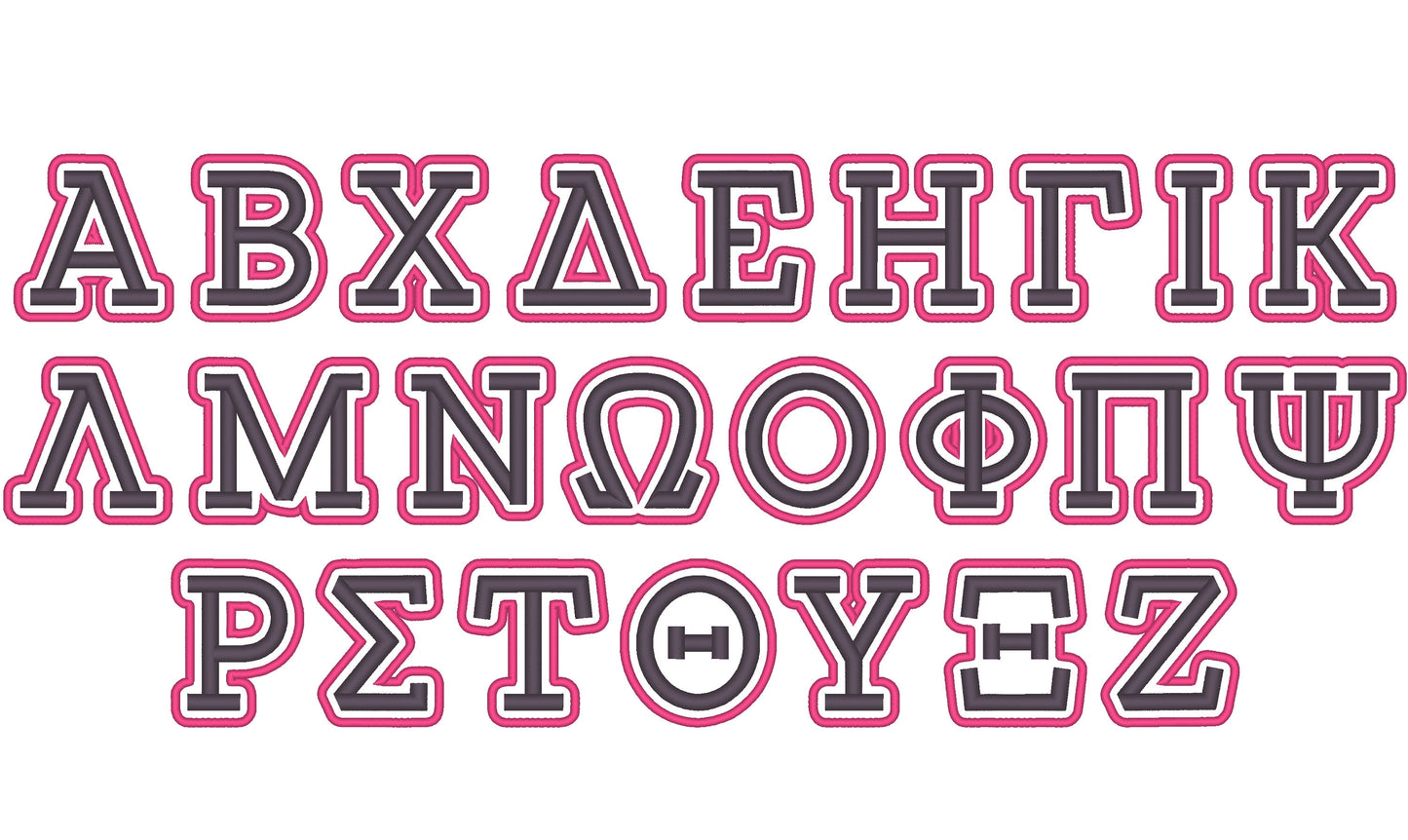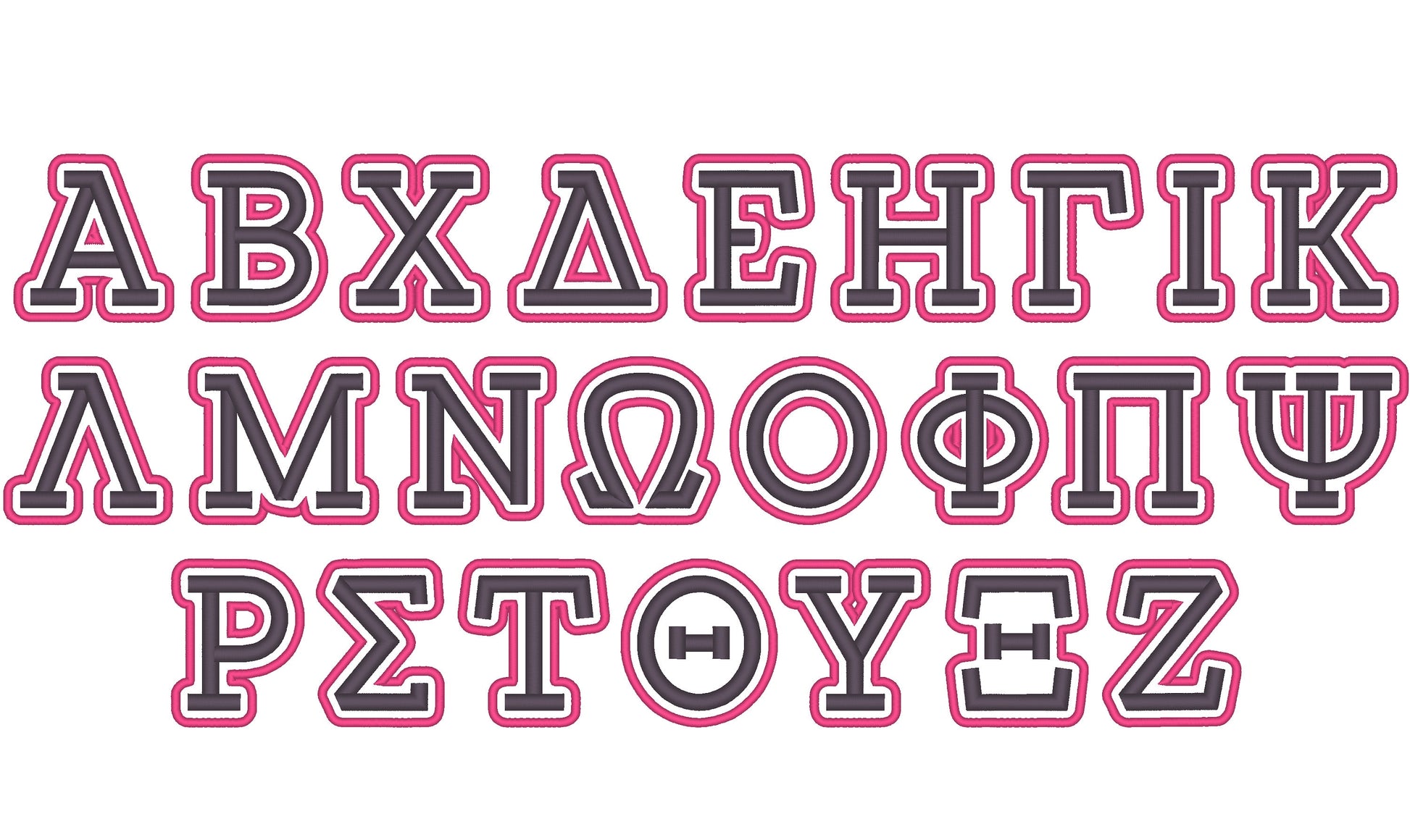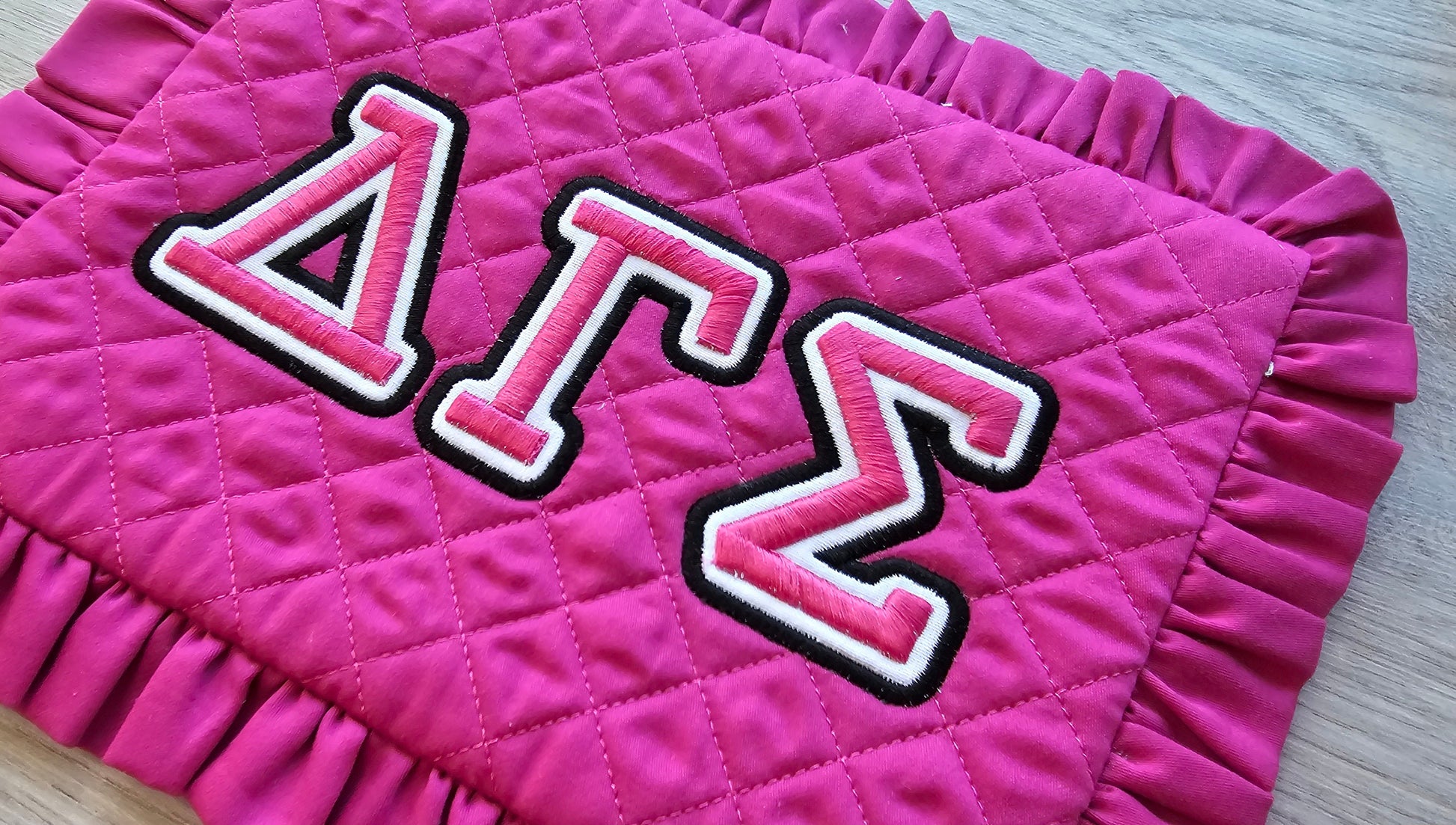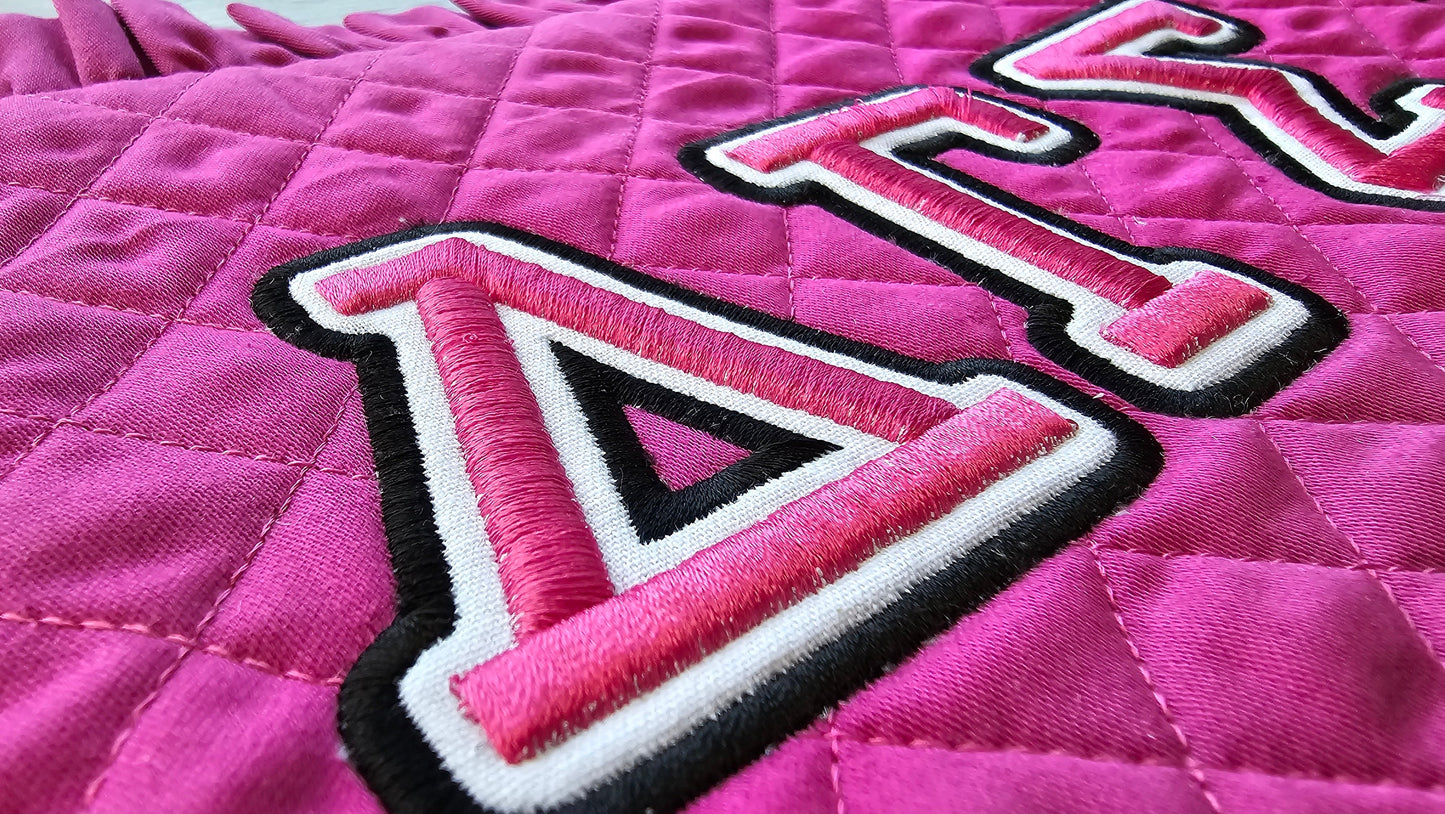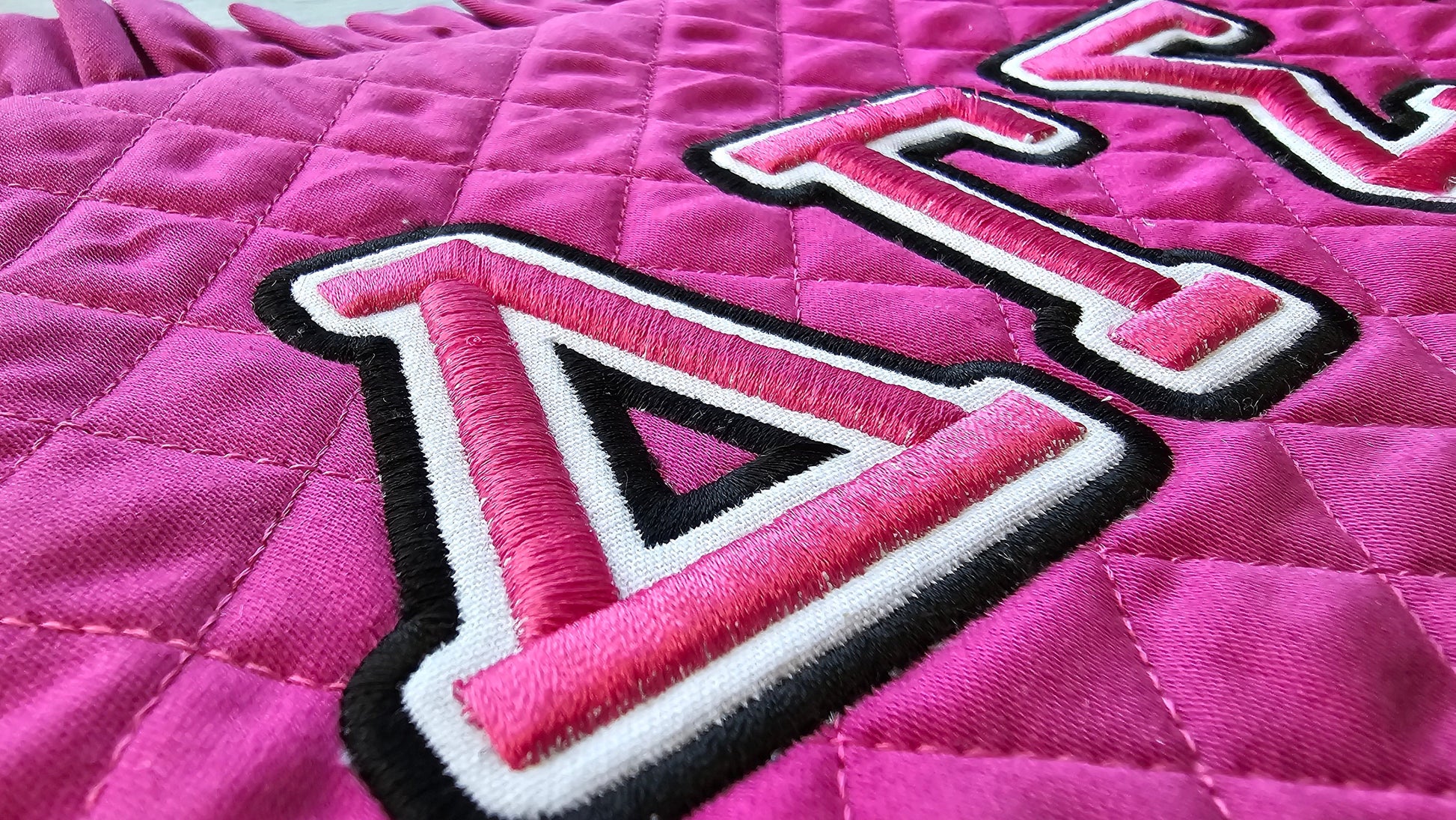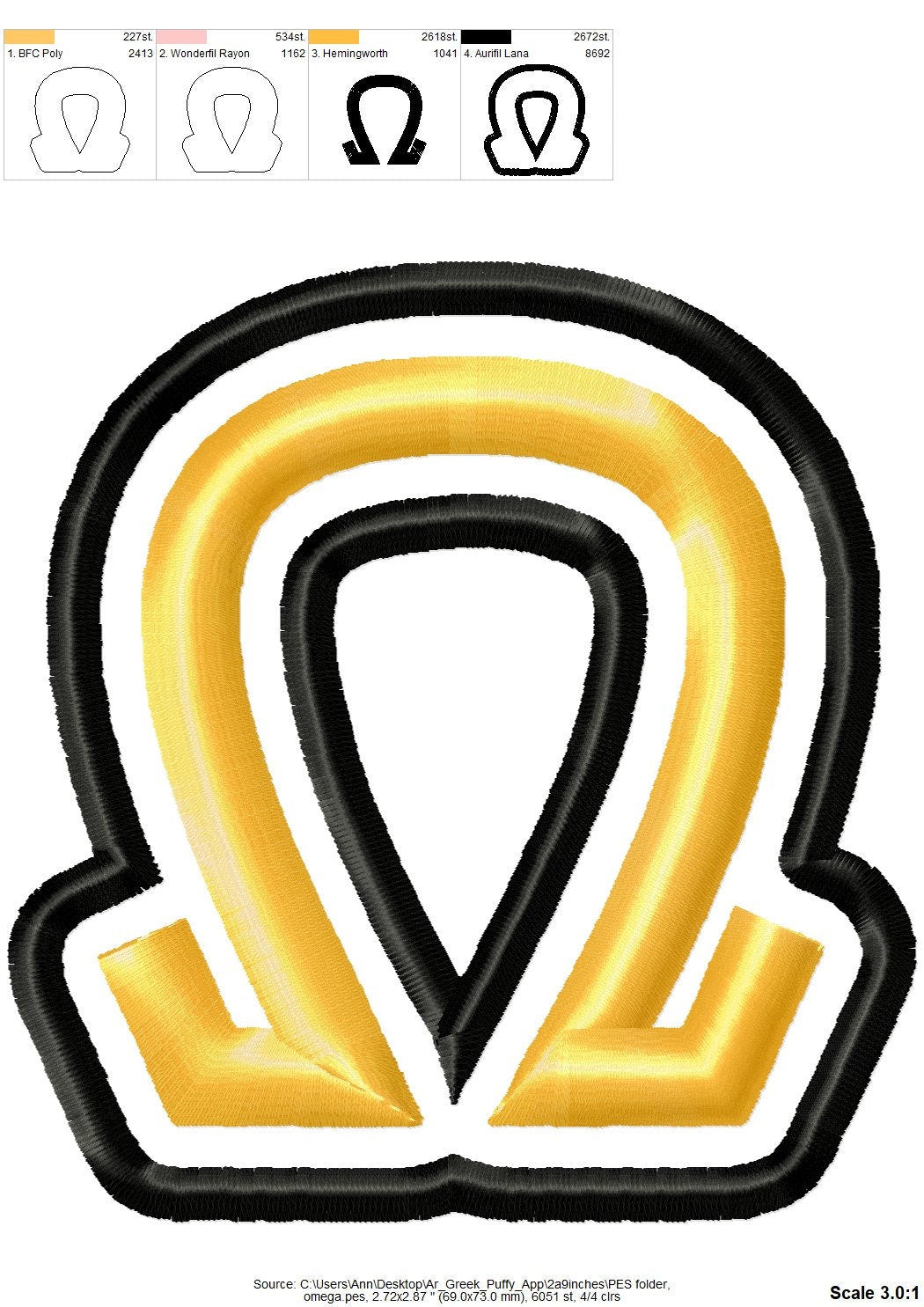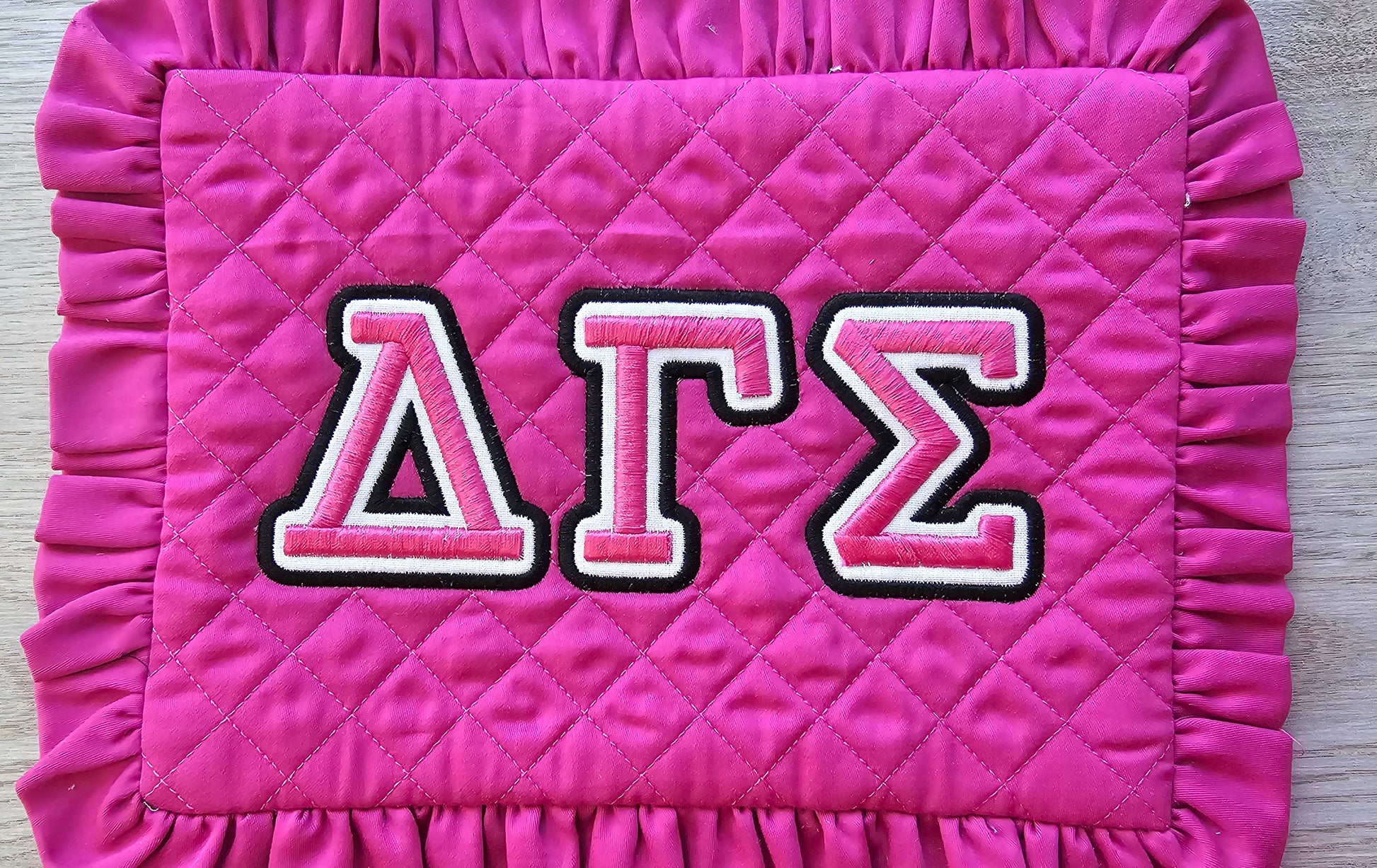
Or click to open the linkVarsity Greek letters with a raised 3D puff look, stitched as applique over puff foam. Made for sorority and fraternity shirts, hats and jackets.
All 24 Greek letters in four sizes: 2.5, 2.9, 3.4 and 3.8 inches. Applique over puff foam gives each letter a raised 3D look.